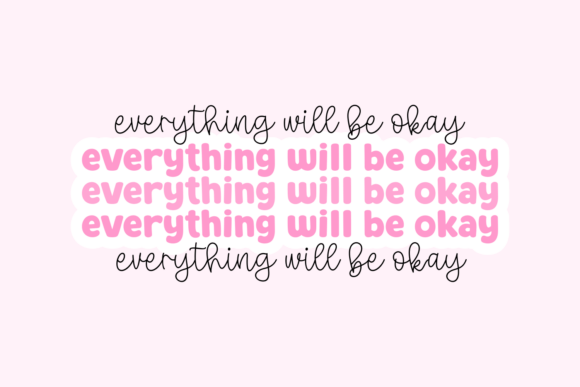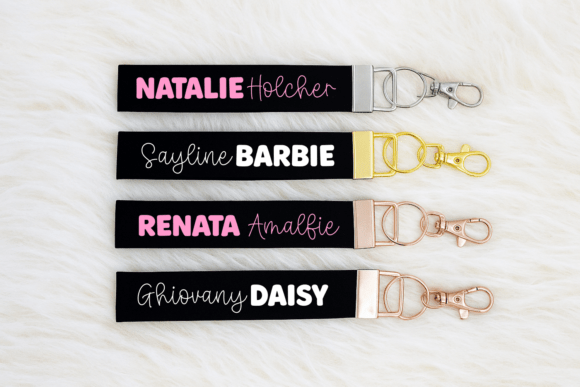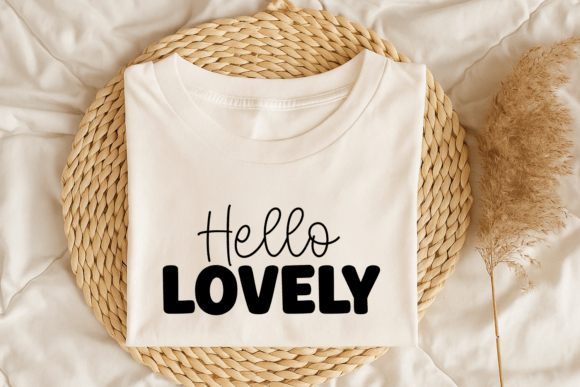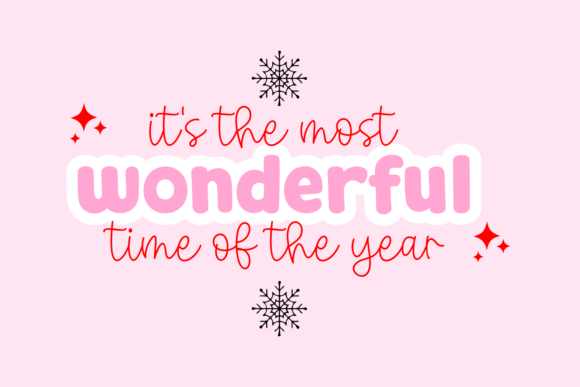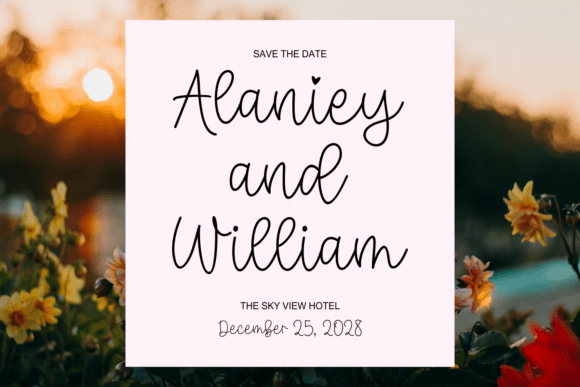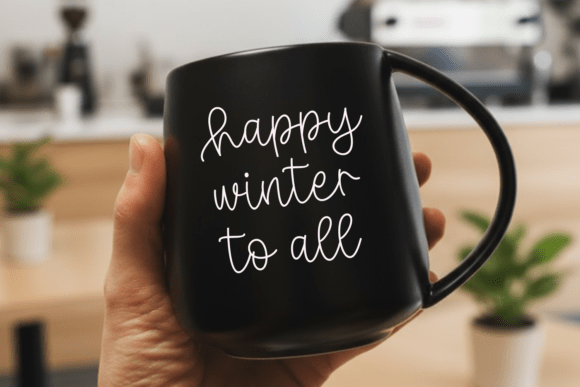
It’s Beautiful Sunshine Font
Say hello to It’s Beautiful Sunshine – a bold sans serif and playful monoline script font duo that brings brightness and charm to every design. This font is the perfect blend of strong, eye-catching sans serif letters and a whimsical handwritten script that flows with elegance and joy.
The bold SUNSHINE style adds impact and readability, while the delicate script style adds a sweet, personal touch. Together, they create a harmonious pair that’s ideal for logos, quotes, invitations, t-shirts, posters, social media, stickers, greeting cards, branding, and more.
Whether you want to design something fun, feminine, or uplifting, It’s Beautiful Sunshine is here to light up your projects with positivity and style.